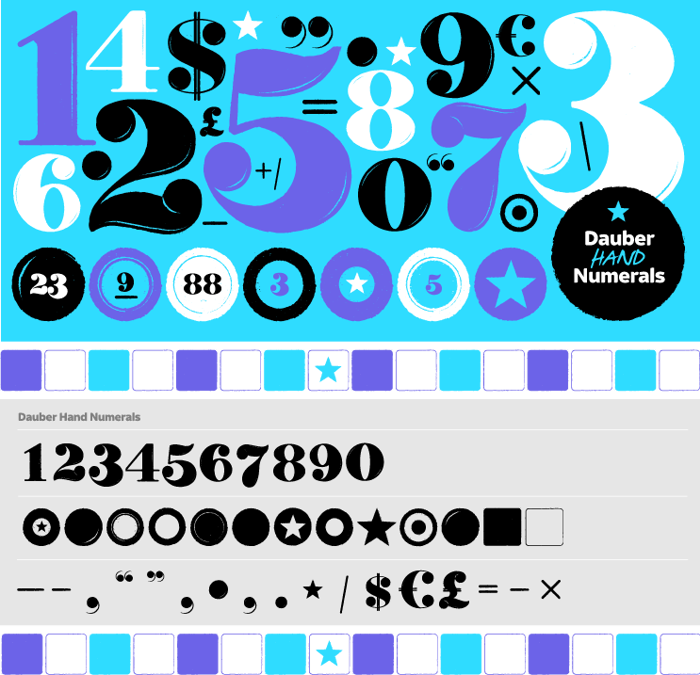
Dauber Hand Numerals Font
Dauber Hand Numerals, a new free font produced by Sky Bingo, is a vintage-style typeface inspired by the classic bingo signs and cards of years gone by. This numerical font may be used for any purpose you see fit, but we think it is absolutely perfect for making your own bingo cards so you can host your own games with friends at home.